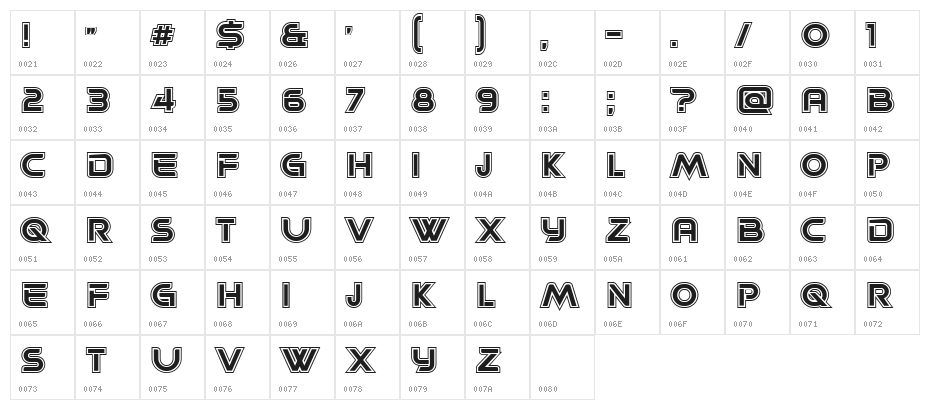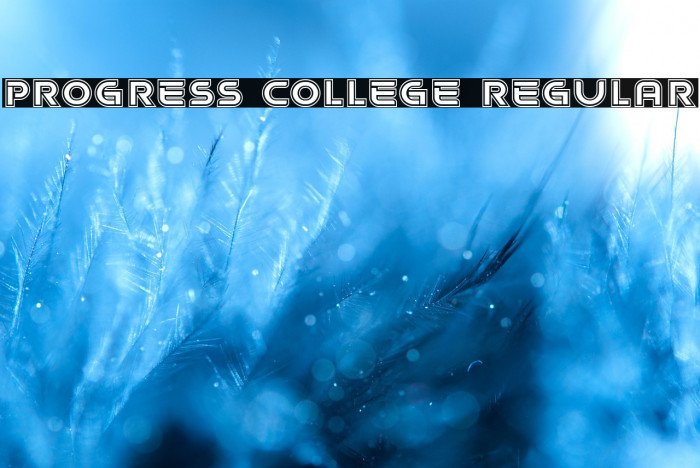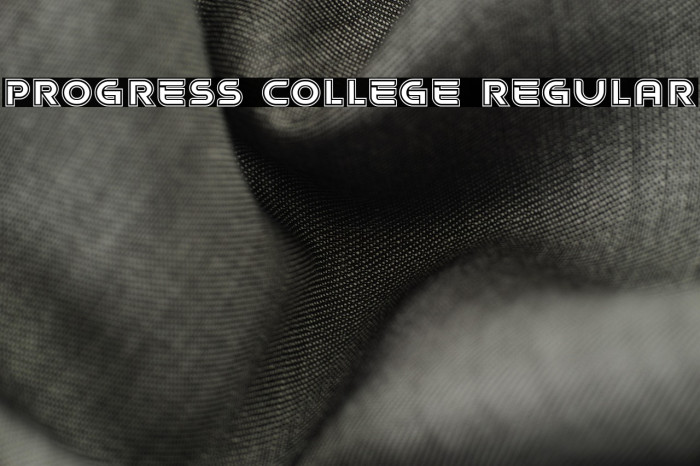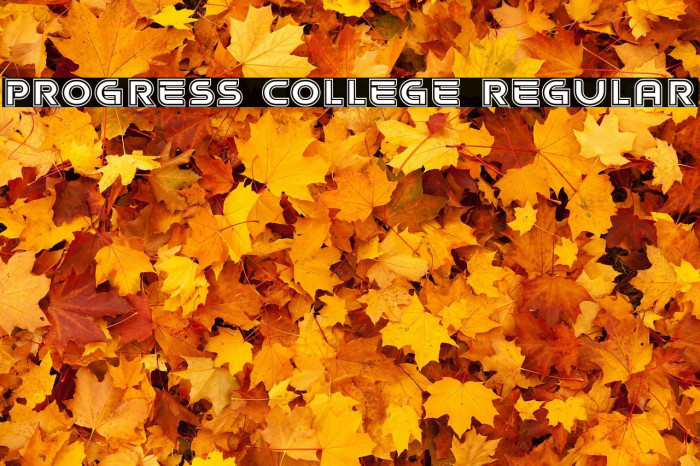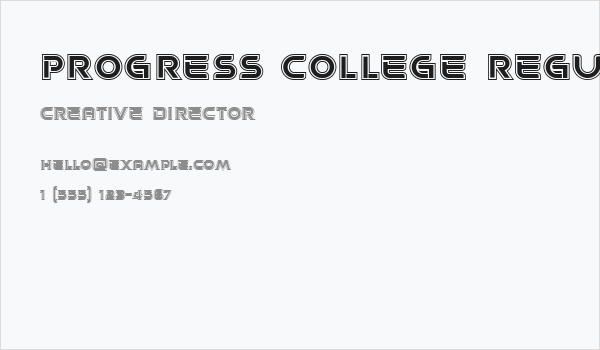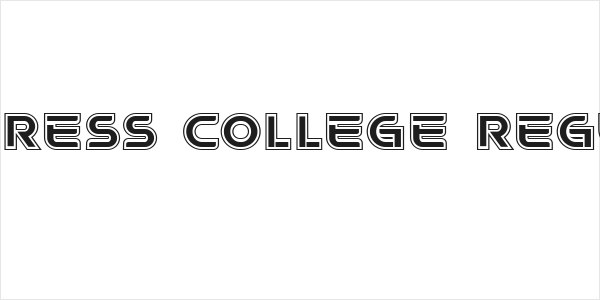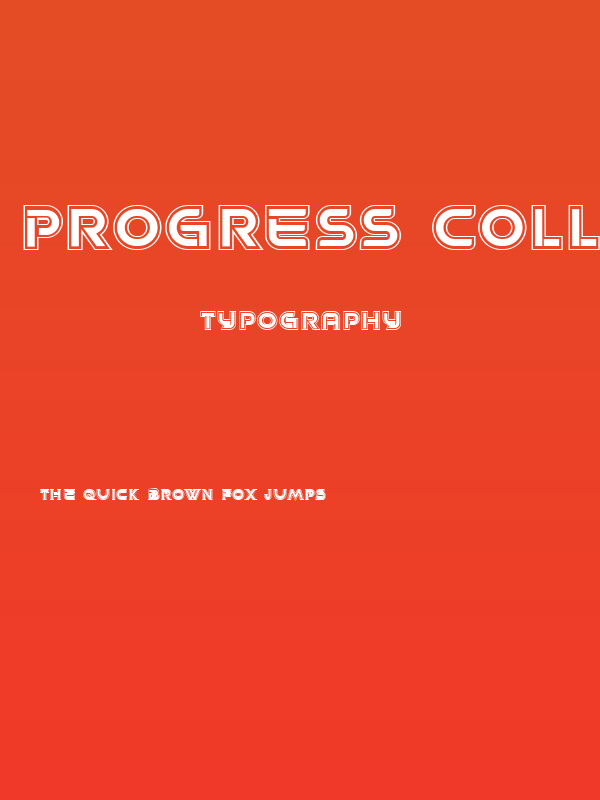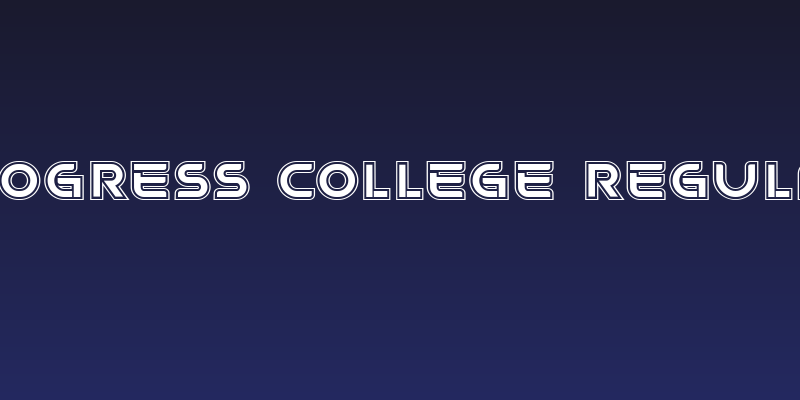
Progress College Regular Font
Progress College Regular Description
This font features a bold, geometric design with a distinct double-line outline that gives it a three-dimensional effect. The characters are uppercase with a strong, modern aesthetic, making them highly legible and impactful. The numbers and special characters follow the same stylistic approach, ensuring consistency across all elements. The font's structure is clean and precise, with a slightly condensed width that adds to its bold presence. The overall style is both contemporary and versatile, suitable for a variety of design applications.